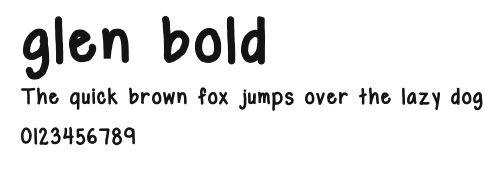
glen bold Preview
• Font Name: glen bold
• Full Font Name: glen bold
About glen bold.ttf
glen bold.ttf is a modern, elegant sans-serif font designed for ultimate readability and visual harmony. Perfect for branding, headlines, web design, and print materials.